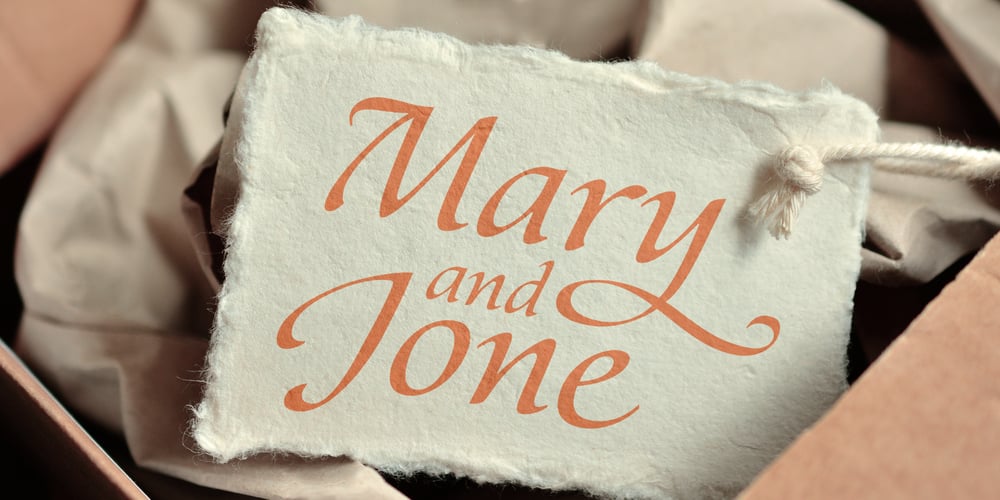
Illusion
Illusion font
Illusion Font Family was designed by Natalia Vasilyeva and published by ParaType. Illusion contains 2 styles and family package options. Illusion™ is an original calligraphic script by Natalia Vasilyeva. The variety of alternates and ligatures makes Illusion especially suitable for use in advertising and display typography. Published by Paratype in 2019.